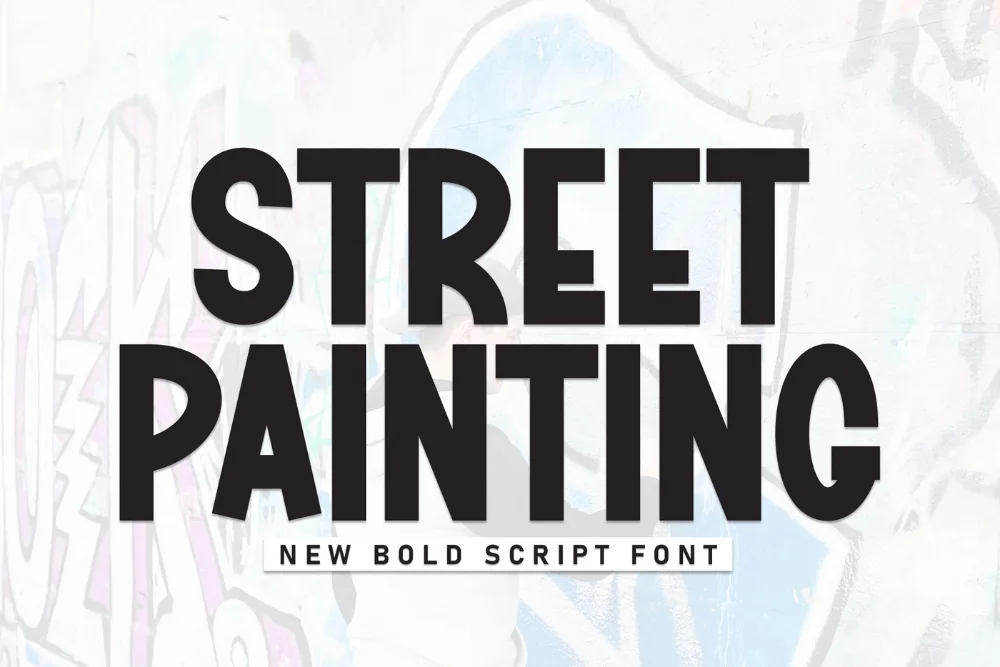
Spray Wall Painting Display Font
Every collection needs a spray paint font that can carry a whole layout on its own. This is that font. Soft edges and light overspray, exactly like fresh paint on rough brick. The texture is baked into the letterforms, so no extra effects are needed.
Edges carry a faint mist where the paint drifted past the stroke, and a few letters show light drips near the baseline. Set it large and the grain reads clearly; set it small and it simply looks softly inked.
Best on posters, event flyers, and product photography overlays where a printed-on-concrete feeling sells the whole design.
Pair it with something quiet. A plain sans for body copy lets the lettering do its job instead of fighting the paragraph underneath it for attention.